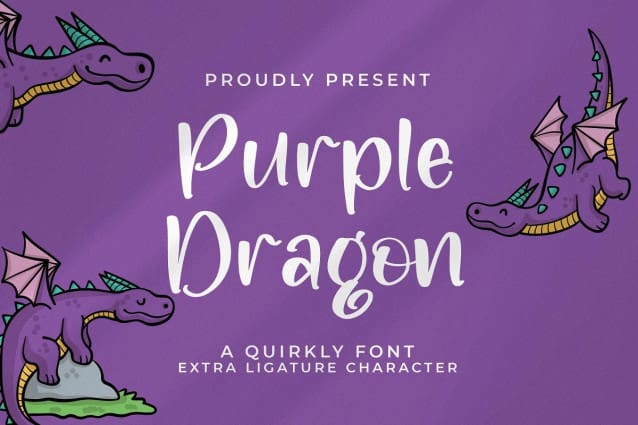
Purple Dragon Font
Purple Dragon Font – A Quirkly Font, from Integritype Studio, is a premium A Quirkly Font, perfect for any project like: logos, branding projects, homewares designs, product packaging, mugs, quotes, posters, shopping bags, t-shirts, covers books, business cards, invitation cards, greeting cards, labels, photography, watermarks, special events and all your other luxury projects that require a premium taste.